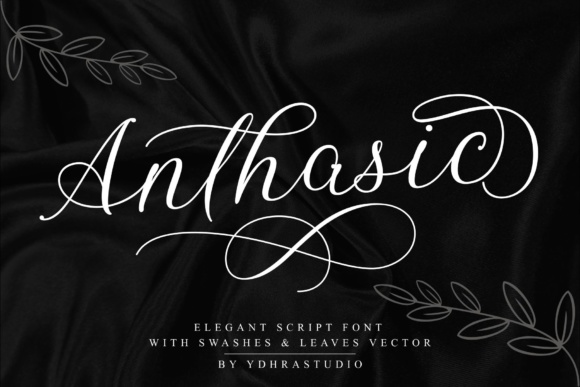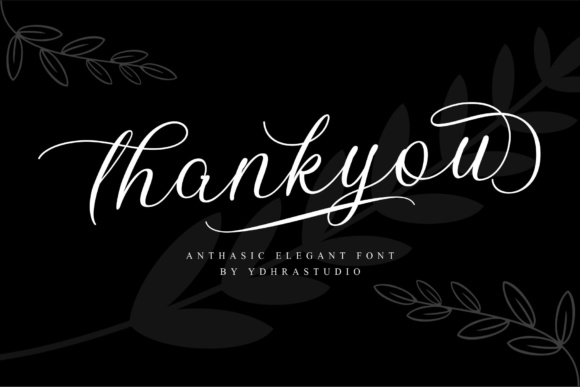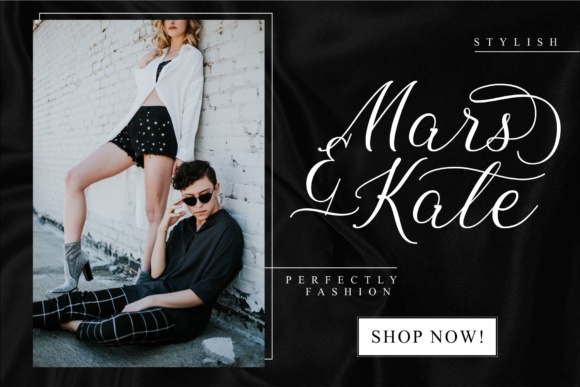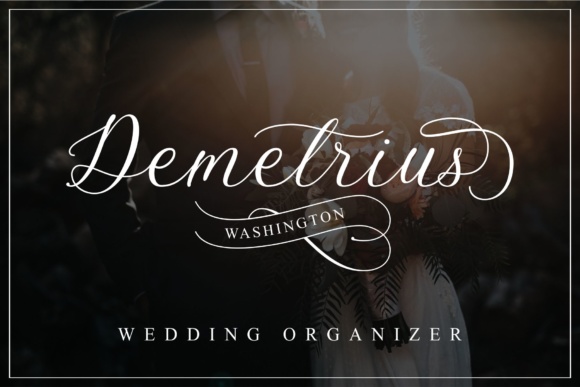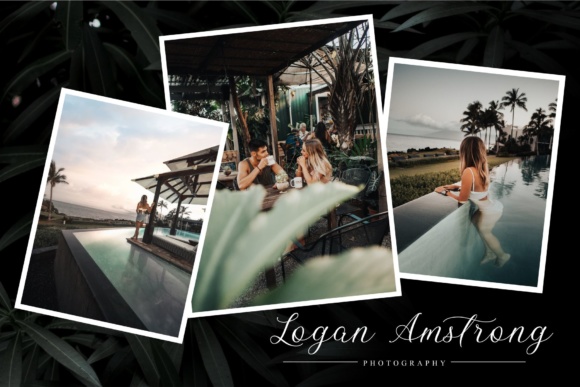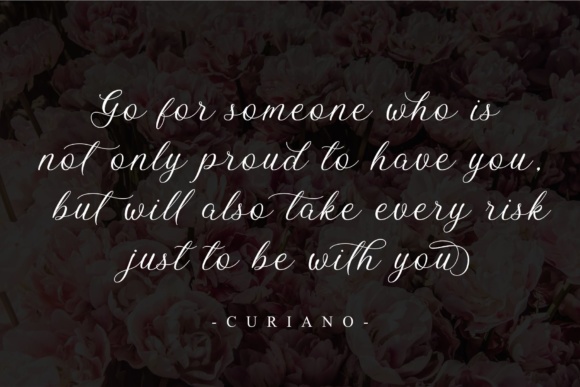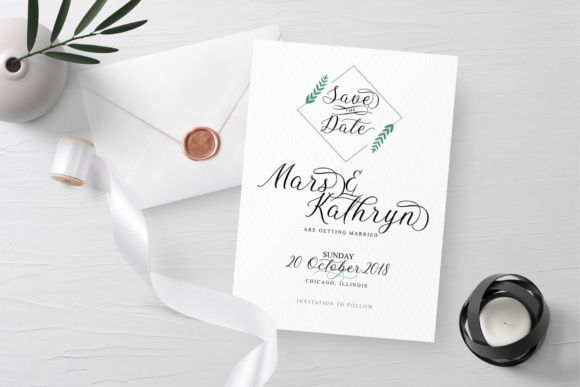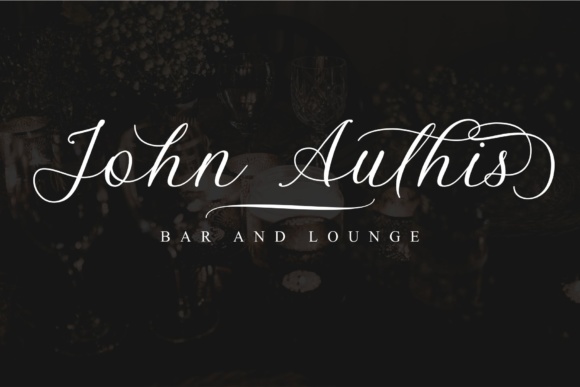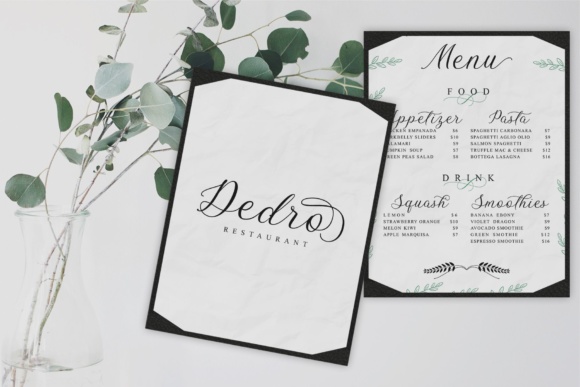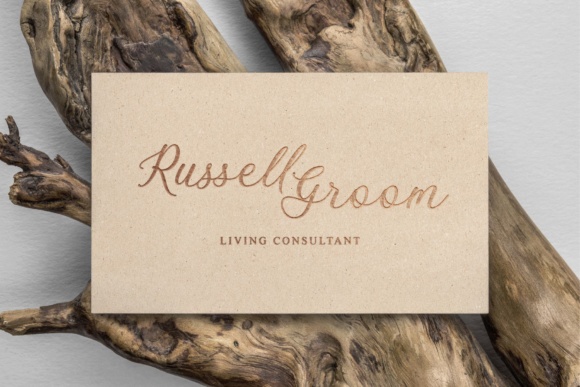
HomeScript FontsAnthasic Font Script Fonts Anthasic Font FacebookXPinterestWhatsApp Anthasic Font Poster 2 Anthasic Font Poster 3 Anthasic Font Poster 4 Anthasic Font Poster 5 Anthasic Font Poster 6 Anthasic Font Poster 7 Anthasic Font Poster 8 Anthasic Font Poster 9 Anthasic Font Poster 10 About Anthasic Font The Anthasic is an elegant script which will add a modern touch to your designs. DOWNLOAD NOW People also explored Homemade Apple Pro Stationary Font Jeline Font The Airplane Font Taylor Johnson Font Phenom Mouse Font Marisha Font Simple Beach Font Dalty Font 363 0 TagsAnthasic Font Previous articleOklahoma FontNext articleScrambled Tofu Font LEAVE A REPLY Cancel reply Comment: Please enter your comment! Name:* Please enter your name here Email:* You have entered an incorrect email address! Please enter your email address here Website: Save my name, email, and website in this browser for the next time I comment. Personal Use Free Geuli Font Personal Use Free Read more about this font Love Memories Personal Use Free Read more about this font Simple Personal Use Free Read more about this font Ardilla Font Personal Use Free Read more about this font BLOG Exploring Font Trends Shaping Communication in the Digital Era Fonts, like all design elements, are subject to trends. They play a crucial role in communicating a brand's personality,... How to Install and Use Fonts on Windows, macOS, and Web Projects Where to Buy American Fonts Online in 2024 Best Fonts for T-Shirt Design – Top 2025 Picks